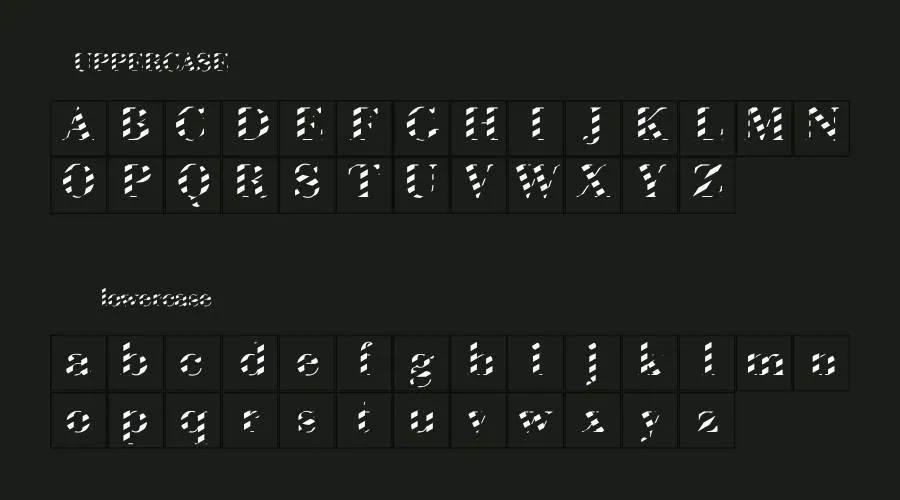
About ABCTech Bodoni Striped Font
Now Going to introduce to you a very elegant and stunning texture called ABCTech Bodoni Striped Font. This font is free and available on this site and is perfect for all your fun purposes, and methods. It looks like the category of the techno texture family.
The pairing quality of this typeface is unique and can be paired with various fonts. The best pairing status of this font is with marina font and can make new luxury designs. This font has an online generator tool, in which you may change all your normal types of alphabet sets into stylish and new modern shapes.